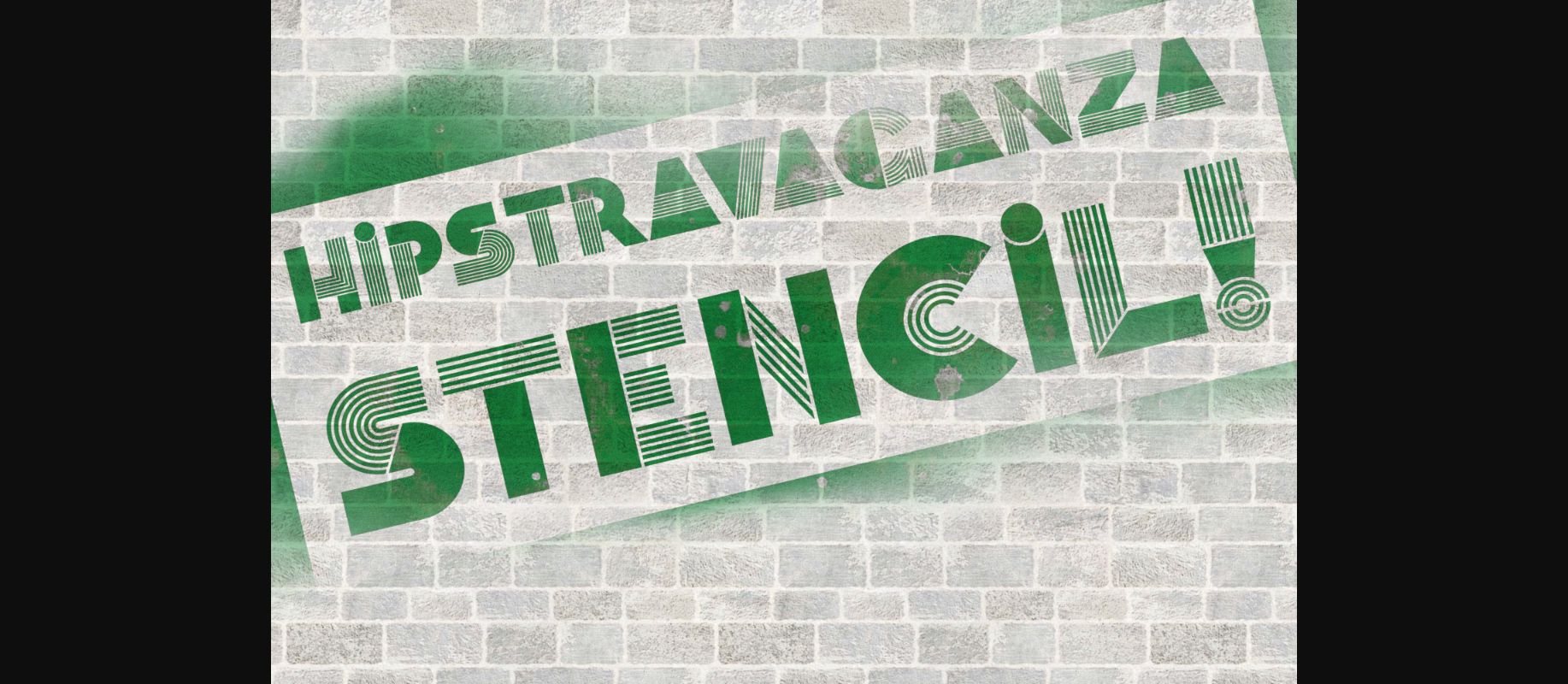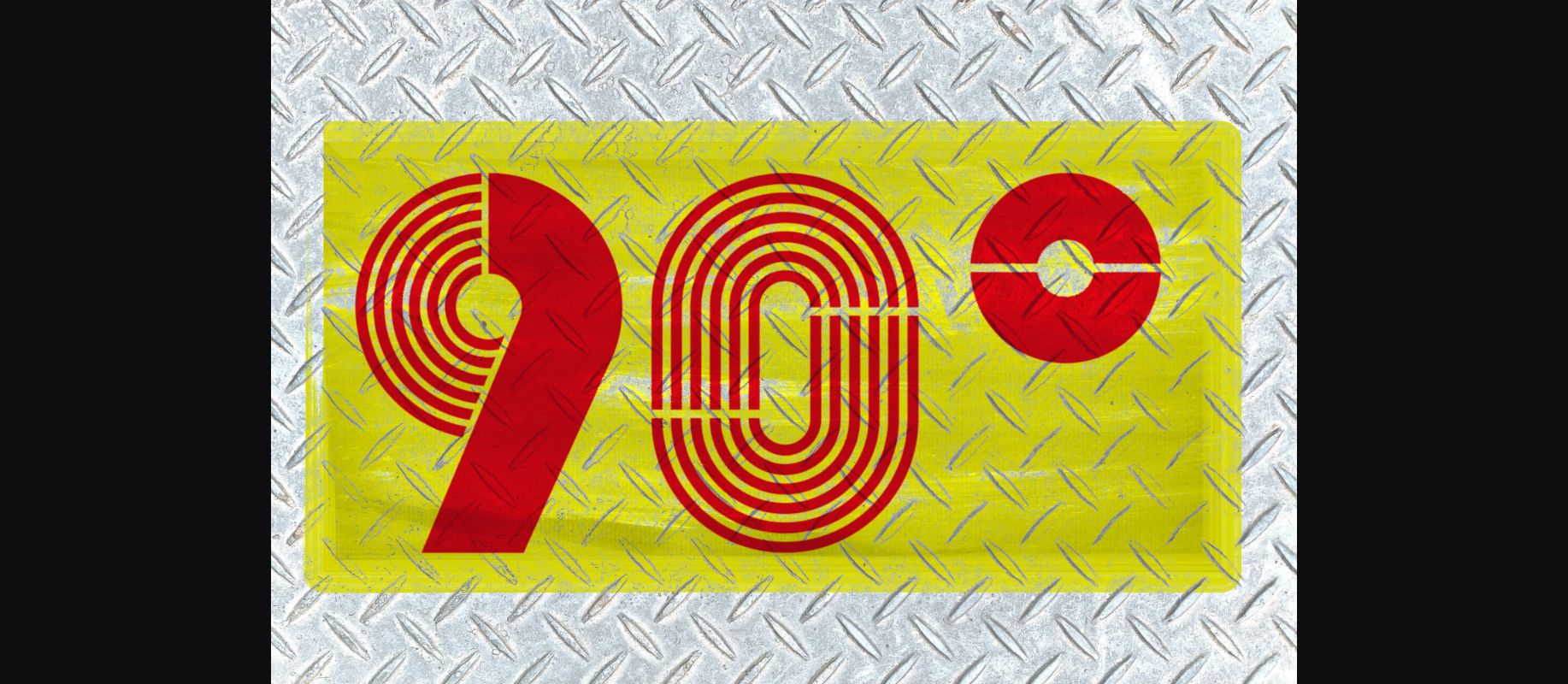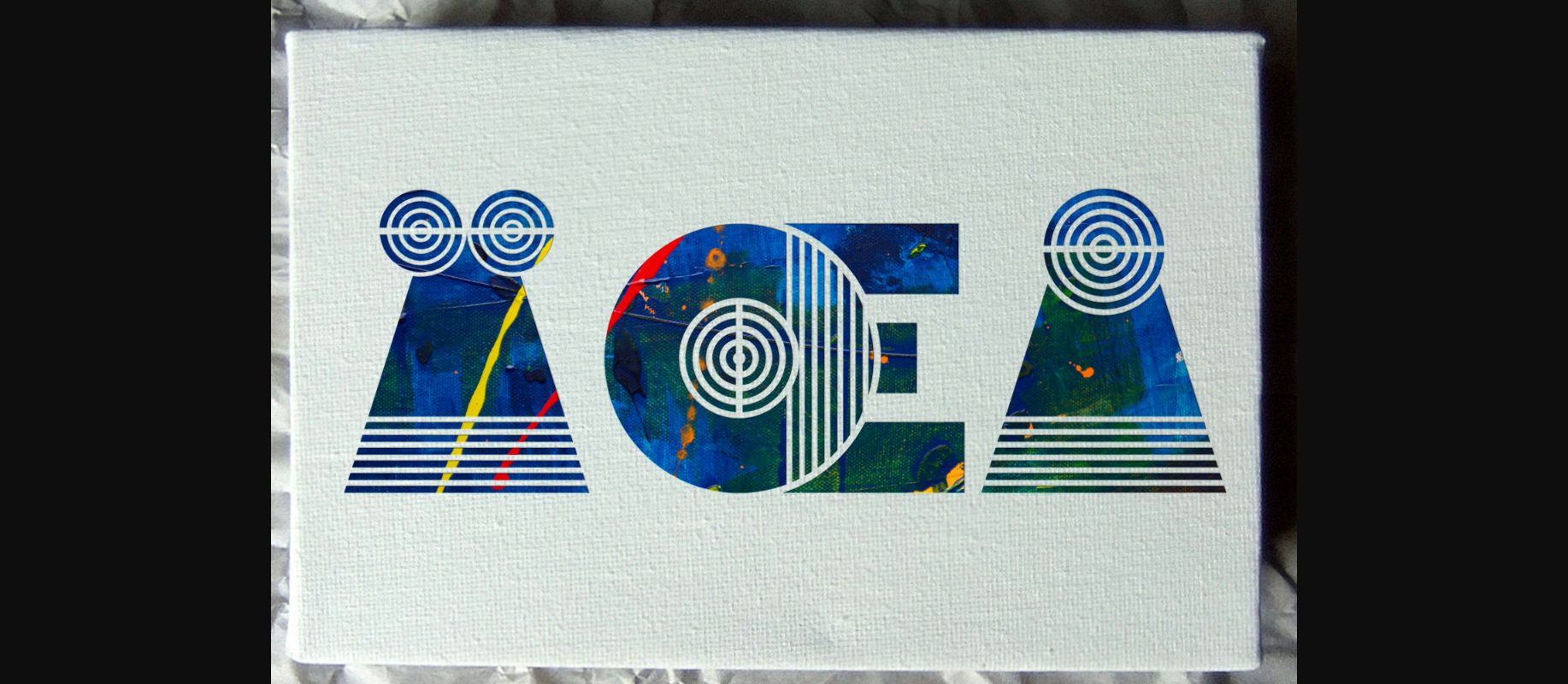
About Hipstravaganza Stencil Font
Hipstravaganza Stencil is all about a flashy retro style. A mixture between blocks and parallel lines will help you create something with a bit more “bang!”
It works best as the centerpiece of a poster or as a foreground in front of photos. Due to its complex shapes, it’s a little difficult to pair up with too many elements and fonts, but it’s certainly an eye-catcher! The parallel lines create a sort of illusion of partial transparency. Use this cool decorative font, and you’ll be amazed by the results!